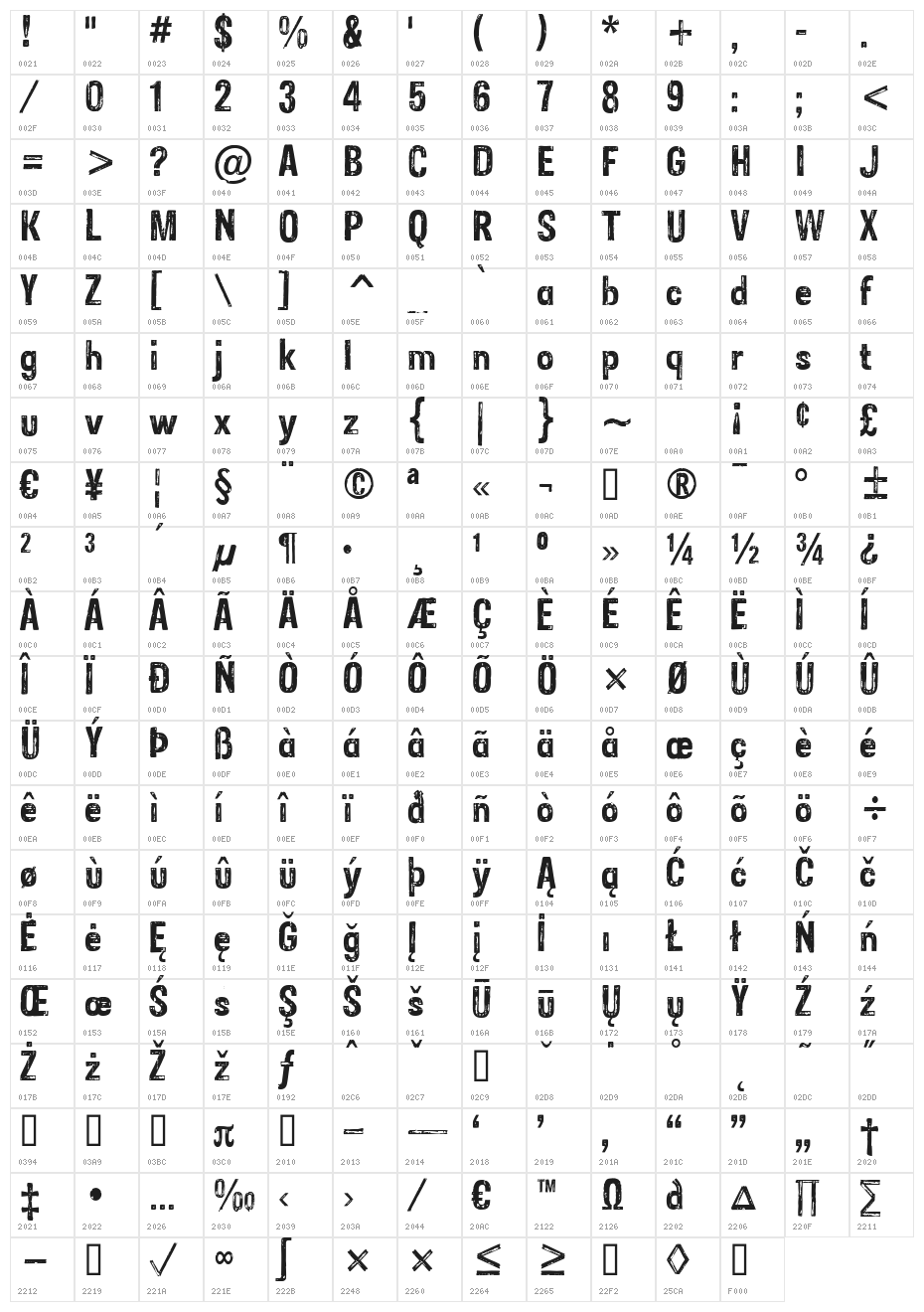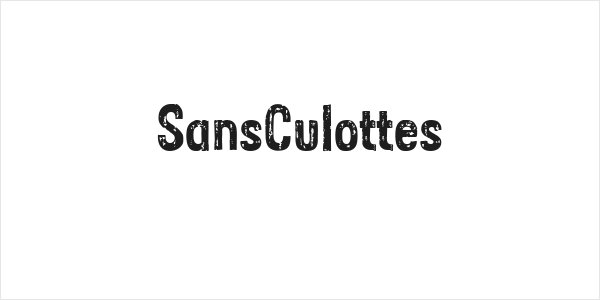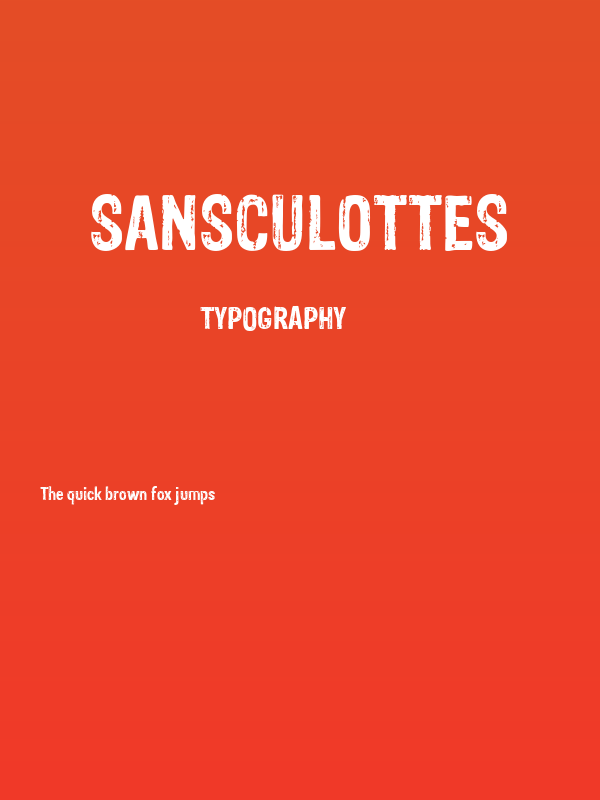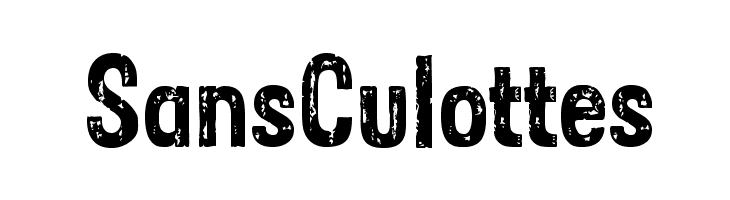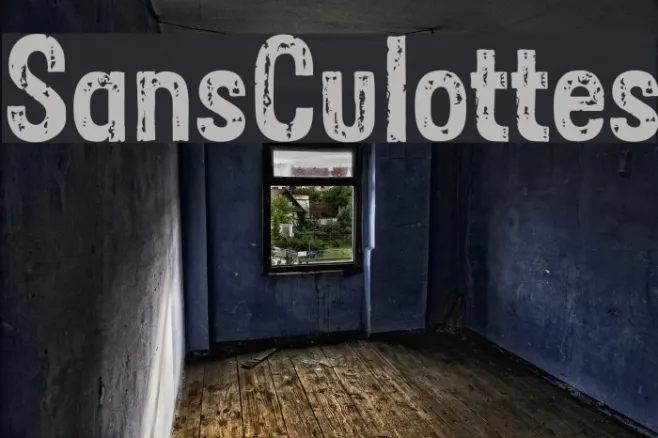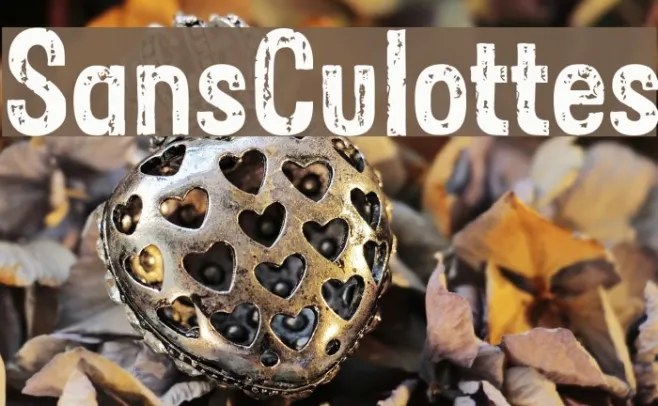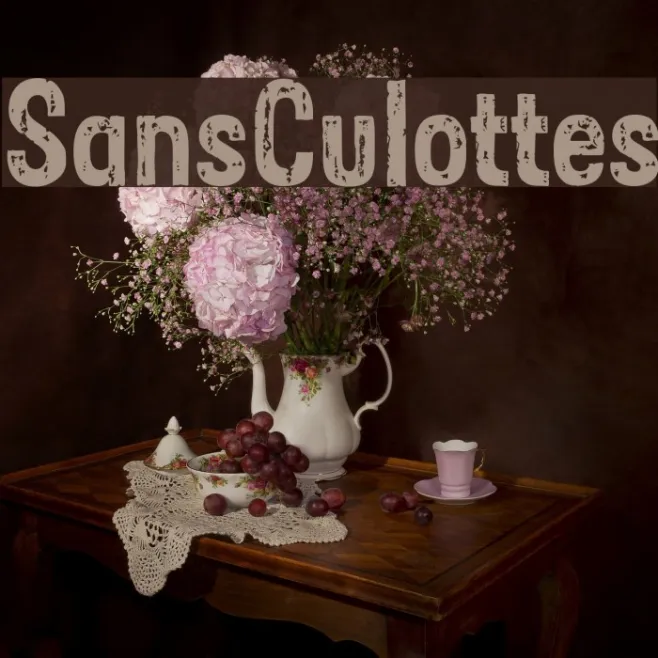
SansCulottes Font
SansCulottes Description
This font features a bold and distressed style, giving it a rugged and vintage appearance. The characters are heavily textured, with a worn-out look that suggests a sense of history and character. The uppercase and lowercase letters maintain a consistent weight, while the numbers and special characters follow the same distressed aesthetic. The overall design is impactful and eye-catching, making it suitable for projects that require a strong visual presence. Its unique style can add a touch of authenticity and rawness to any design.
| Proposed Projects | Ideal for posters, album covers, vintage-themed designs, and branding that requires a bold statement. |